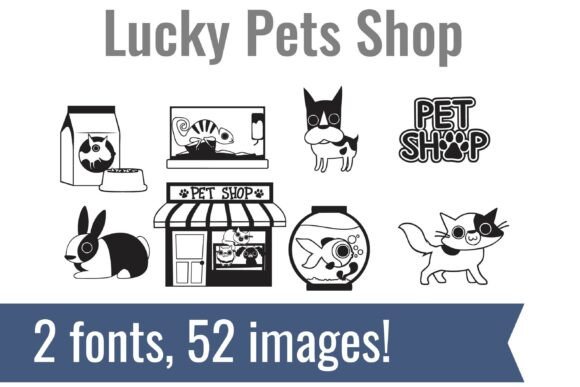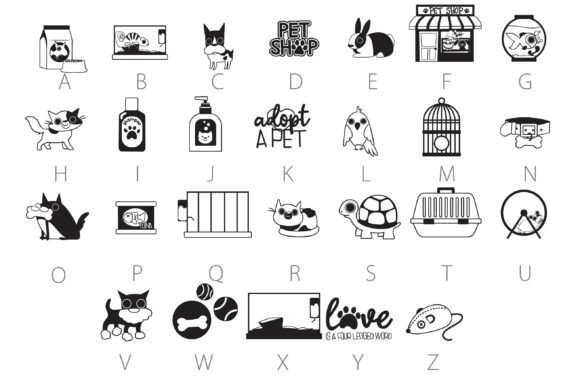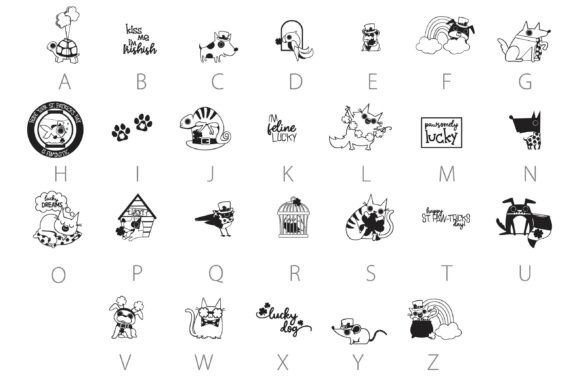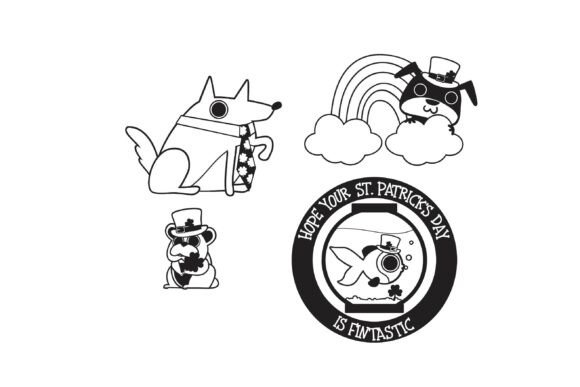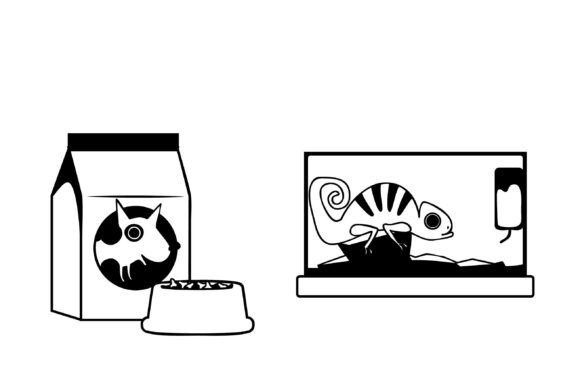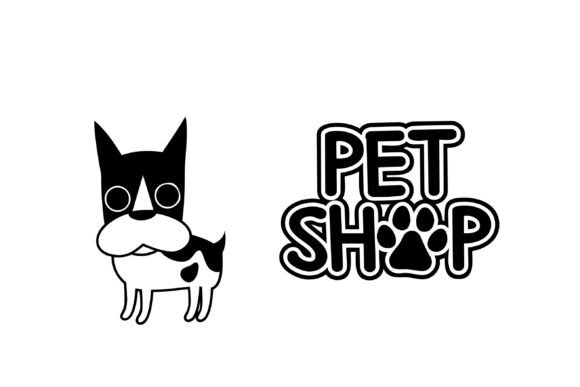
Introduction to Lucky Pets Dingbats Font
๐พ Lucky Pets: Fonts & Illustrations Bundle Celebrate St.
Patrickโs Day with your favorite four-legged friends Lucky Pets is a heartwarming creative bundle that features 2 playful fonts and 52 charming pet illustrations themed for the luck of the Irish.
Key Features of Lucky Pets Dingbats Font
Why Choose Lucky Pets Dingbats Font?
Lucky Pets Dingbats Font offers exceptional quality and versatility, making it a valuable addition to your design toolkit. Whether you’re creating for personal projects or commercial use, Lucky Pets Dingbats Font delivers professional results.